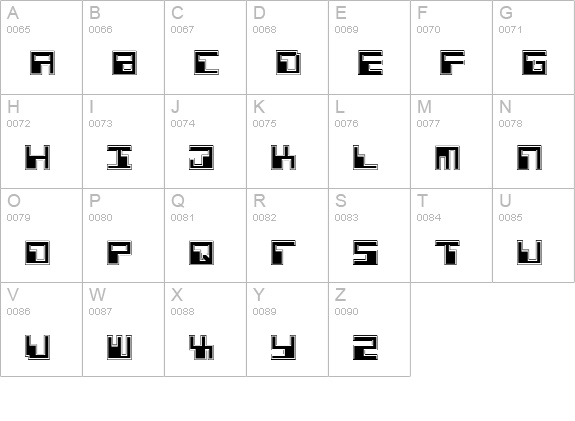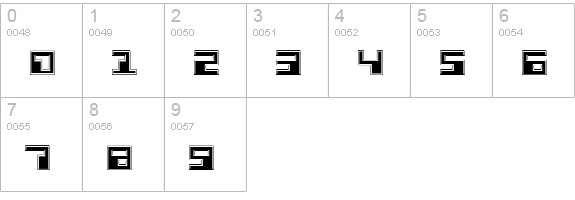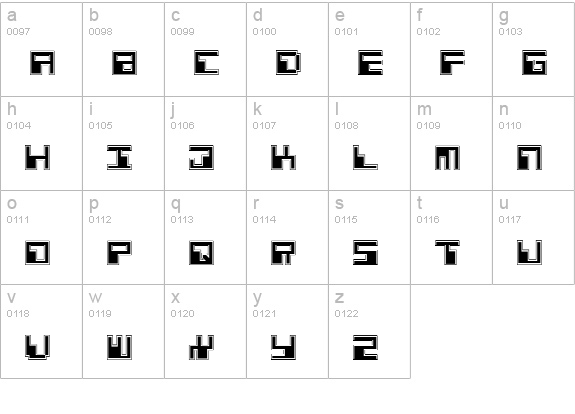
Phaser Bank Pro Font Details
Phaser Bank Pro is a sleek and modern typeface that exudes sophistication and style. Its clean lines and sharp angles make it perfect for a wide range of design projects, from branding to advertising. With its futuristic vibe and edgy appeal, Phaser Bank Pro is sure to make a bold statement wherever it is used. The best part? Phaser Bank Pro is available for free download at FontsMarket.com, offering designers and creatives the opportunity to access this premium font without any cost. Whether you're working on a personal project or a client commission, Phaser Bank Pro is a versatile and dynamic font that will elevate your designs to the next level. Don't miss out on this incredible opportunity to enhance your typography collection with Phaser Bank Pro – download it now for free at FontsMarket.com!